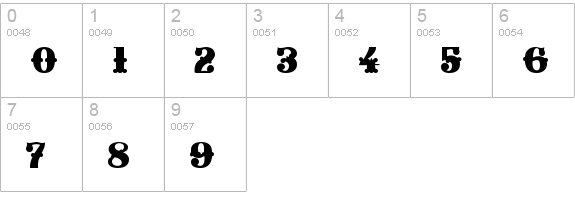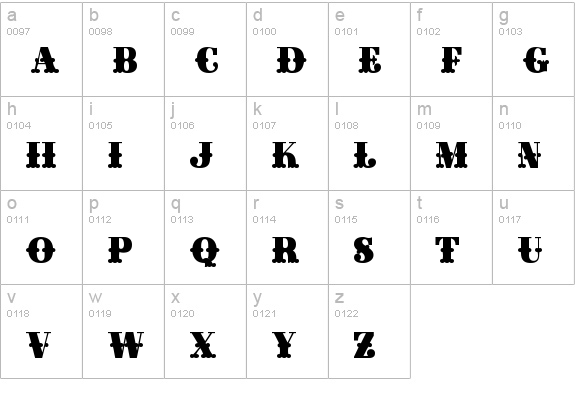
Gille Classsic Fill Font Details
Gille Classic Fill font is a timeless and elegant typeface that exudes sophistication and charm. Its intricate design and exquisite details make it perfect for adding a touch of vintage flair to any project. This font is ideal for creating beautiful logos, invitations, and branding materials that demand a touch of class. The best part? Gille Classic Fill font is available for free download at FontsMarket.com. This means you can easily access this stunning font and use it in your projects without any cost. Don't miss out on the opportunity to enhance your designs with this beautiful and versatile typeface. Download Gille Classic Fill font today and elevate your creations to new heights of elegance and style.